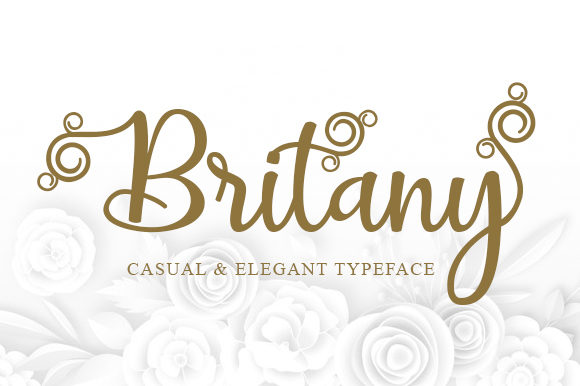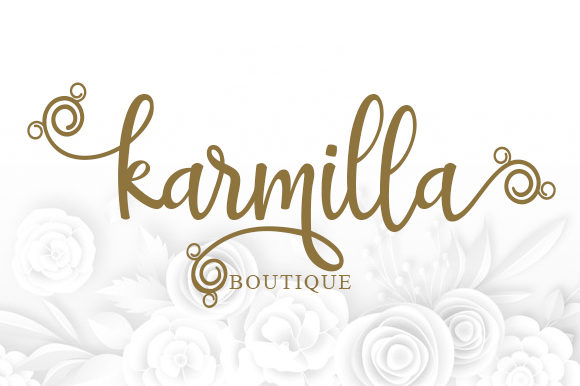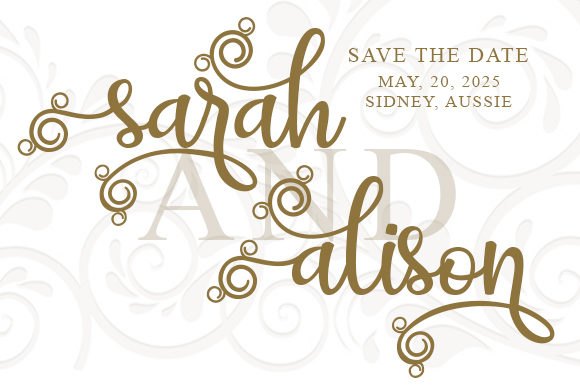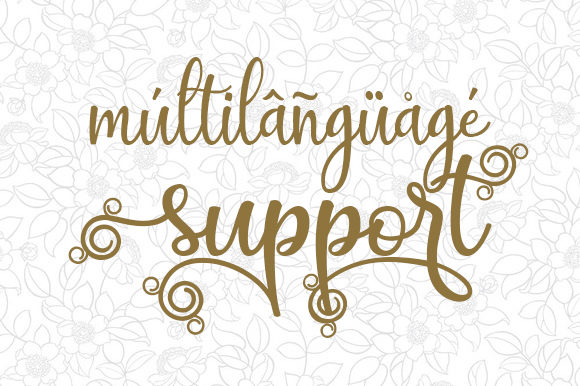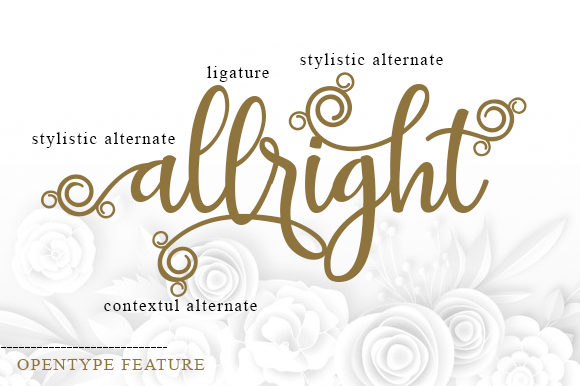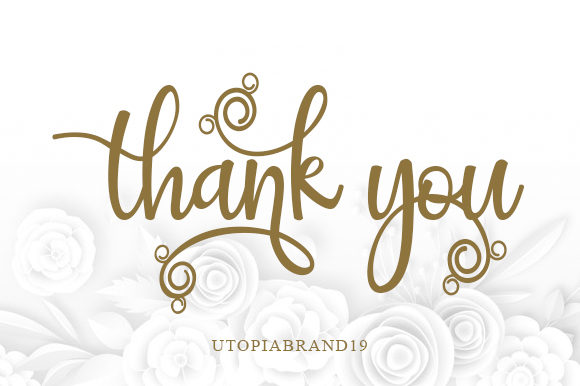
Discover the Elegance of Britany Script Font
Are you looking for a font that exudes romance and sophistication? Look no further than the stunning Britany Script Font. This incredibly fluid and organic script is sure to capture your heart with its iconic swashes and elegant vibe. In this article, we’ll dive into the world of Britany Script Font and explore its features, uses, and benefits for designers and crafters.
The Charm of Britany Script Font
Britany Script Font is a beautiful, hand-crafted typeface that boasts a romantic and feminine charm. Its fluid strokes and organic feel make it perfect for designs that require a touch of elegance and sophistication. The font’s iconic swashes add a decorative touch, making it ideal for use in wedding invitations, branding, and other high-end designs.
Key Features of Britany Script Font
- Fluid and Organic Design: Britany Script Font features a fluid and organic design that gives it a natural, hand-crafted feel.
- Iconic Swashes: The font’s iconic swashes add a decorative touch, making it perfect for use in designs that require a touch of elegance.
- Romantic Vibe: Britany Script Font exudes a romantic vibe, making it ideal for use in wedding invitations, Valentine’s Day designs, and other romantic-themed projects.
- Highly Versatile: The font is highly versatile and can be used in a variety of designs, from branding and advertising to packaging and digital media.
Uses of Britany Script Font
Britany Script Font is a highly versatile font that can be used in a variety of designs. Here are some of the most popular uses of this stunning font:
- Wedding Invitations: The font’s romantic vibe and elegant design make it perfect for use in wedding invitations and other wedding-related designs.
- Branding and Advertising: Britany Script Font is ideal for use in branding and advertising designs that require a touch of elegance and sophistication.
- Packaging Design: The font’s decorative swashes and fluid design make it perfect for use in packaging design, particularly for luxury brands.
- Digital Media: Britany Script Font can be used in digital media, including social media graphics, blog headers, and website designs.
Benefits of Using Britany Script Font
There are many benefits to using Britany Script Font in your designs. Here are a few:
- Elegant and Sophisticated: The font’s elegant and sophisticated design makes it perfect for use in high-end designs.
- Romantic Vibe: Britany Script Font exudes a romantic vibe, making it ideal for use in designs that require a touch of warmth and personality.
- Highly Versatile: The font is highly versatile and can be used in a variety of designs, from branding and advertising to packaging and digital media.
- Easy to Read: Despite its decorative swashes, Britany Script Font is easy to read, making it perfect for use in designs that require a touch of elegance and sophistication.
Tips for Using Britany Script Font
Here are a few tips for using Britany Script Font in your designs:
- Use it Sparingly: While Britany Script Font is a beautiful font, it can be overwhelming if used too much. Use it sparingly to add a touch of elegance and sophistication to your designs.
- Pair it with a Sans-Serif Font: Pairing Britany Script Font with a sans-serif font can create a beautiful contrast and add visual interest to your designs.
- Experiment with Swashes: The font’s iconic swashes are a key feature. Experiment with different swashes to add a decorative touch to your designs.
| Font Name | Britany Script Font |
| Author | utopiabrand19 |
In conclusion, Britany Script Font is a stunning font that exudes elegance and sophistication. Its fluid and organic design, iconic swashes, and romantic vibe make it perfect for use in a variety of designs, from wedding invitations and branding to packaging and digital media. With its highly versatile design and easy-to-read letters, Britany Script Font is a great addition to any designer’s font collection.